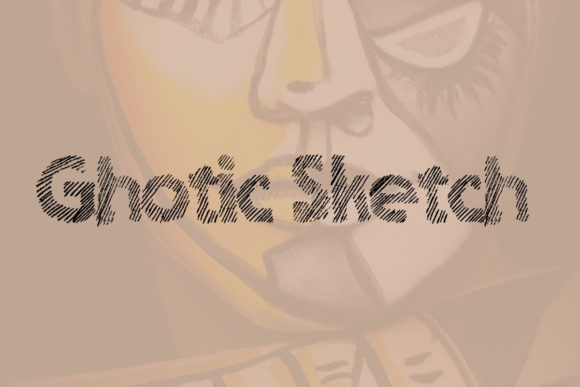
Ghotic Sketch Font: Elevate Your Designs with a Unique Arty Touch
Are you tired of using the same old fonts in your designs? Do you want to add a touch of personality and whimsy to your creations? Look no further than the Ghotic Sketch Font! This eye-catching and engaging arty display font is perfect for designers and crafters who want to take their work to the next level.
What is Ghotic Sketch Font?
Ghotic Sketch Font is a unique and stylish font that is sure to turn heads. With its sketchy, hand-drawn aesthetic, it’s perfect for adding a touch of personality to any design. Whether you’re working on a greeting card, business branding materials, or social media posts, this font is sure to make your work stand out.
Key Features of Ghotic Sketch Font
- Eye-catching and engaging: The Ghotic Sketch Font is designed to grab attention and draw the eye. Its unique, arty aesthetic makes it perfect for designs that need to stand out.
- Versatile: This font is perfect for a wide range of design applications, from greeting cards and business branding materials to social media posts and more.
- High-quality: This font is designed to be clear and legible, even at small sizes, making it perfect for use in a variety of design applications.
Uses for Ghotic Sketch Font
The Ghotic Sketch Font is perfect for a wide range of design applications, including:
- Greeting cards: Add a touch of personality to your greeting cards with the Ghotic Sketch Font.
- Business branding materials: Use this font to create unique and eye-catching business branding materials, such as logos, business cards, and letterheads.
- Social media posts: Make your social media posts stand out with the Ghotic Sketch Font.
- Invitations: Use this font to create unique and stylish invitations for parties, weddings, and other special events.
- Stationery: Add a touch of personality to your stationery with the Ghotic Sketch Font.
Tips for Using Ghotic Sketch Font
Here are a few tips for getting the most out of the Ghotic Sketch Font:
- Use it sparingly: Because of its bold and eye-catching nature, it’s best to use the Ghotic Sketch Font sparingly. Use it to highlight important information or to add a touch of personality to your design.
- Pair it with other fonts: The Ghotic Sketch Font pairs well with a variety of other fonts. Try pairing it with a clean and simple font to create a bold and eye-catching contrast.
- Experiment with colors: The Ghotic Sketch Font looks great in a variety of colors. Experiment with different colors to find the one that works best for your design.
The Ghotic Sketch Font is a unique and stylish font that is sure to elevate your designs. With its eye-catching and engaging arty aesthetic, it’s perfect for designers and crafters who want to add a touch of personality to their work. Whether you’re working on a greeting card, business branding materials, or social media posts, this font is sure to make your work stand out. So why wait? Download the Ghotic Sketch Font today and take your designs to the next level!